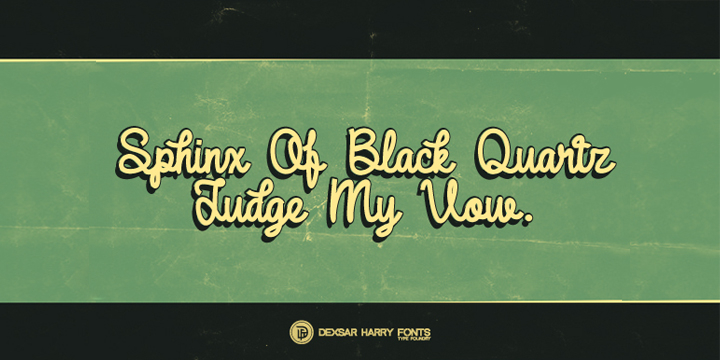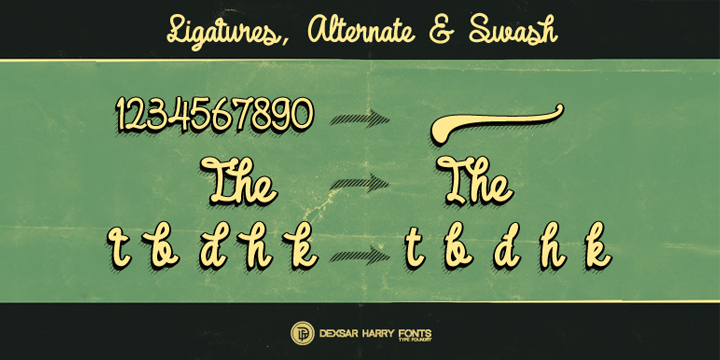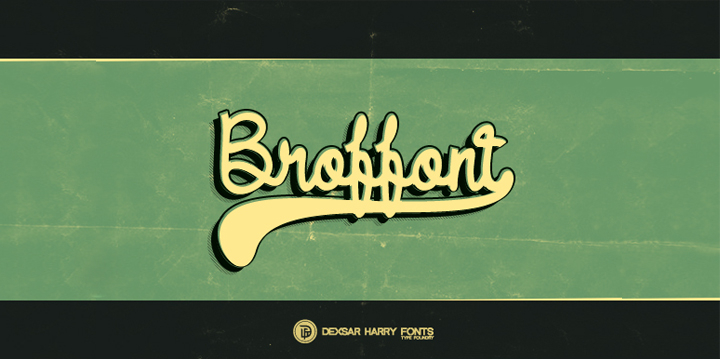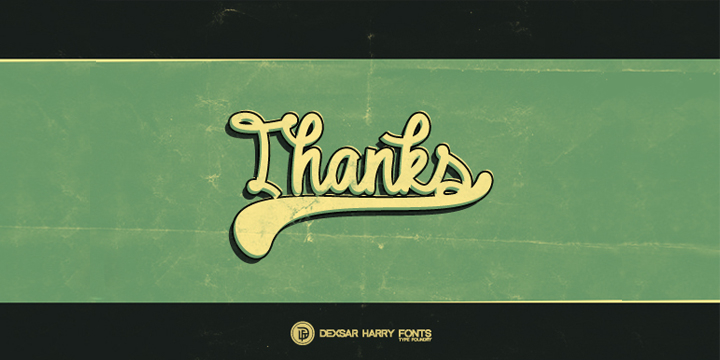
DHF Broffont Script is a script font family. This typeface has two styles and was published by Majestype.
Broffont Script is a script font inspired from Baseball & Vintage logos. This font has 2 variants: “Broffont Script & Broffont Script Swash.” These fonts include 322 Glyphs & OpenType feature : ligatures and Stylistic Alternate.